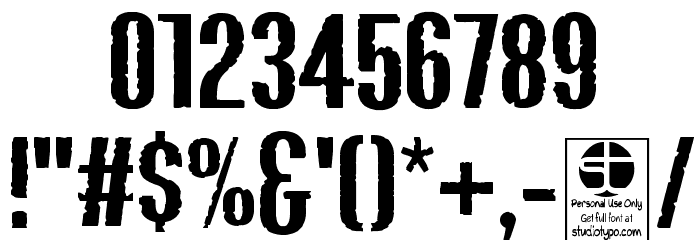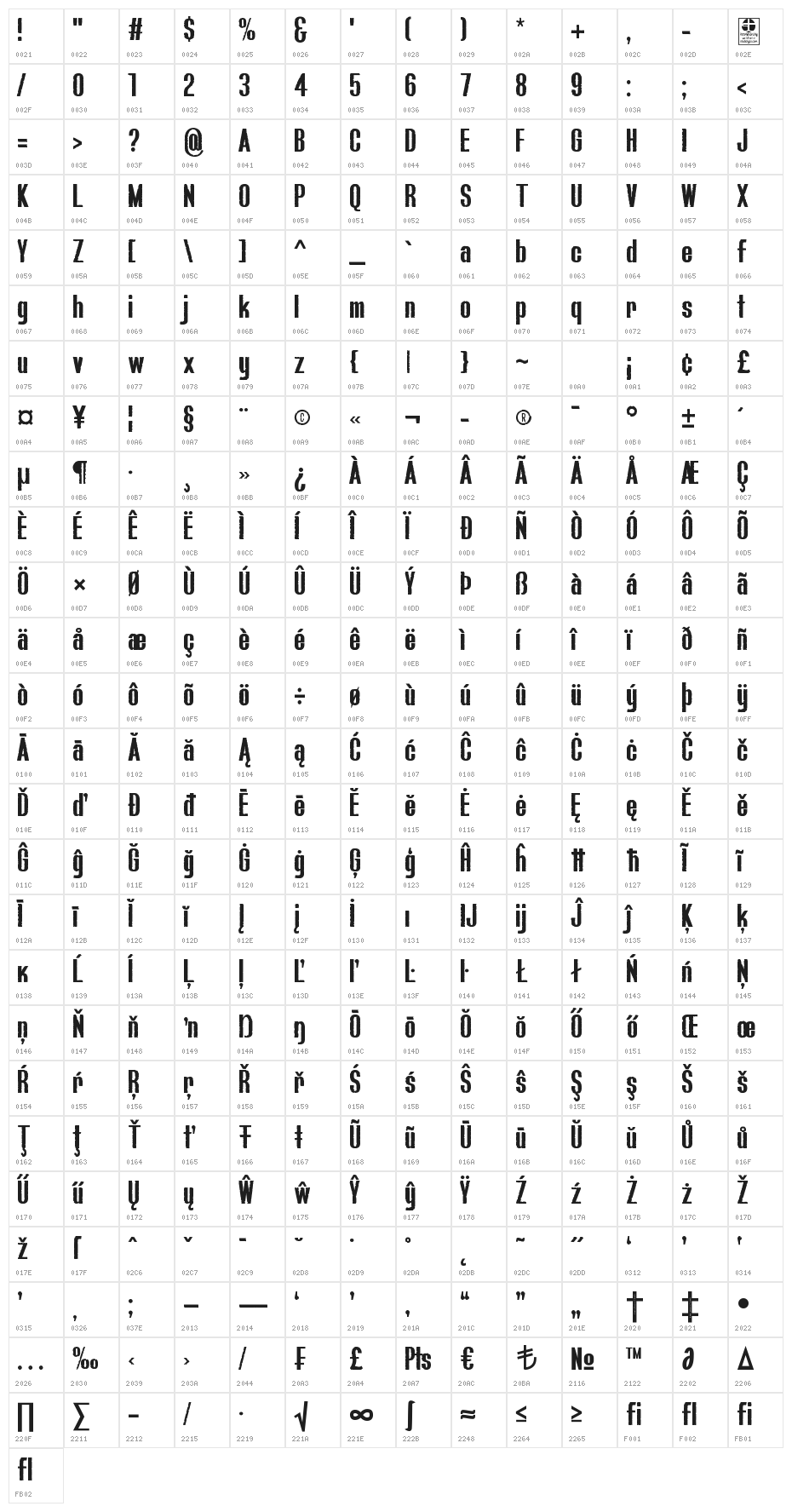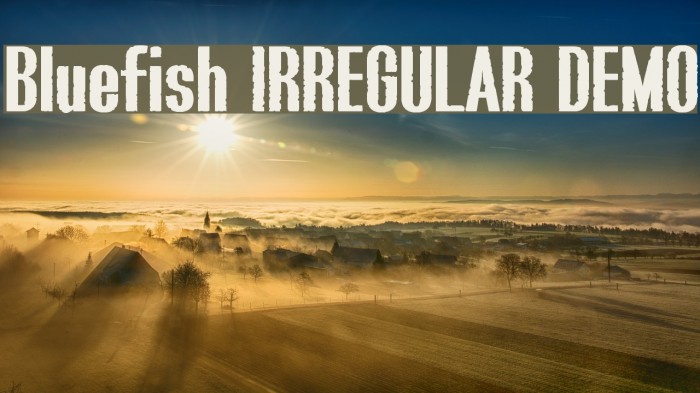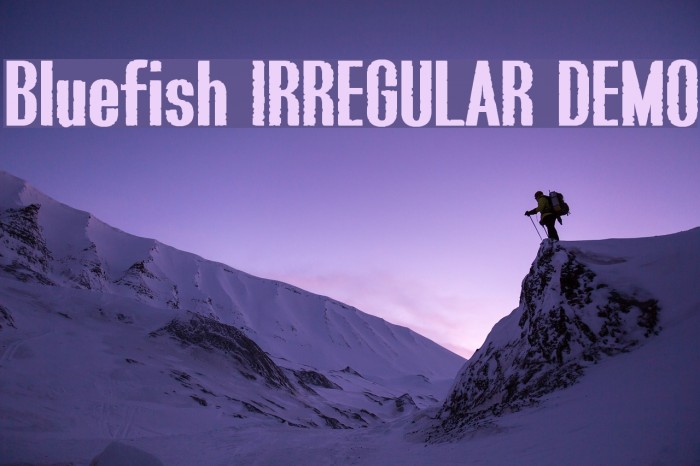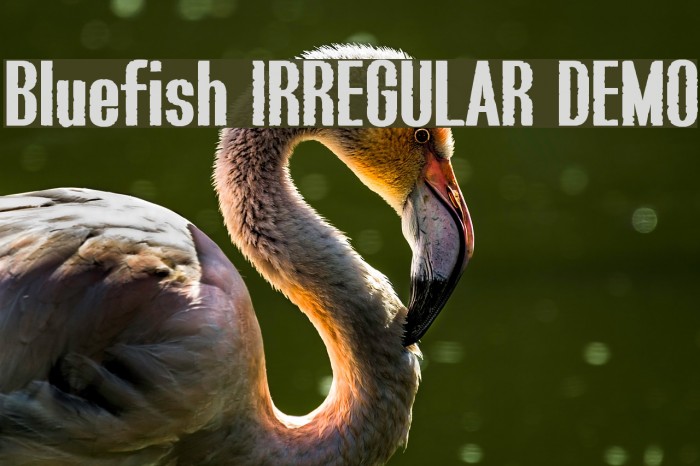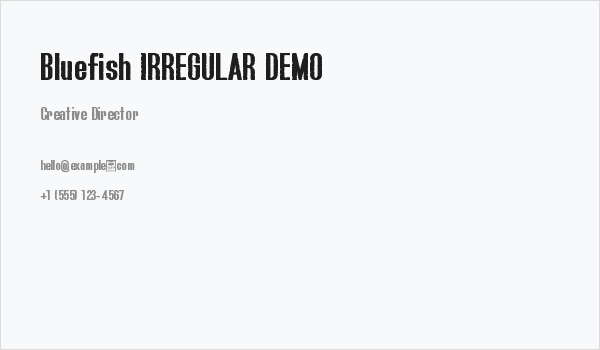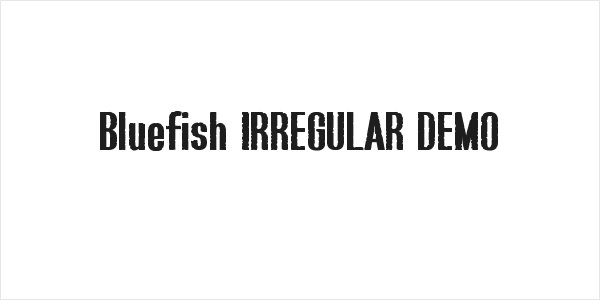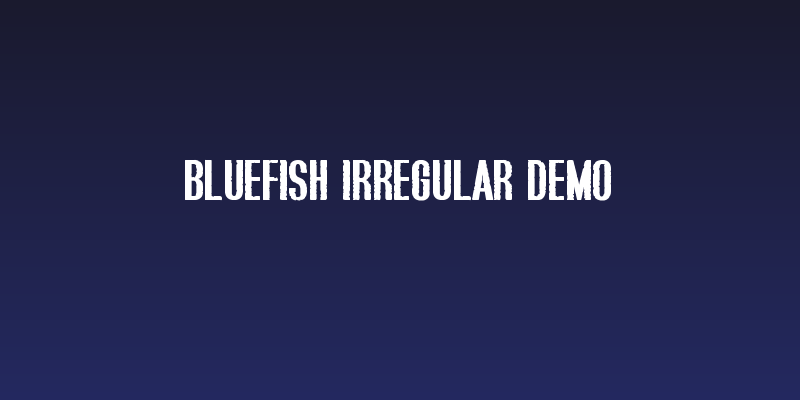
Bluefish IRREGULAR DEMO Font
Bluefish IRREGULAR DEMO Description
This font features a rugged, distressed appearance with irregular edges, giving it a bold and dynamic look. The uppercase and lowercase letters maintain a consistent height, while the numbers and special characters follow the same stylistic theme. The texture suggests a worn or vintage feel, making it ideal for projects that require a touch of edginess or a handcrafted aesthetic. The bold strokes and uneven lines contribute to its unique character, making it stand out in any design context.
| Overall Style | Vintage, Decorative |
| Proposed Projects | Ideal for posters, album covers, branding for edgy or vintage-themed products, and any design requiring a bold, standout typeface. |